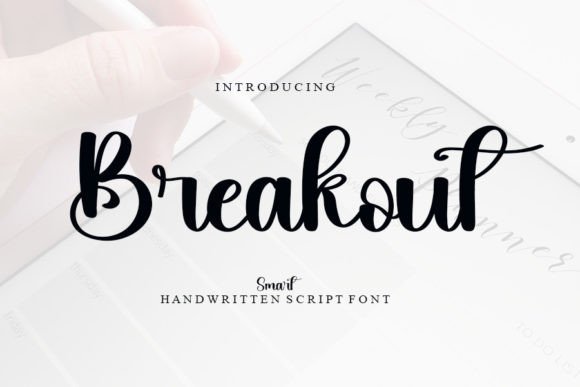
Introducing Breakout Font: Elevate Your Designs with Timeless Elegance
In the world of typography, fonts play a crucial role in conveying the tone and personality of a design. For designers and crafters seeking to add a touch of sophistication and class to their projects, Breakout Font is an excellent choice. This trendy handwritten font boasts a contemporary atmosphere and impeccable form, drawing inspiration from timeless classic calligraphy.
The Story Behind Breakout Font
Breakout Font is a carefully crafted typeface that combines traditional calligraphy techniques with modern design sensibilities. Its creators aimed to develop a font that would not only be visually stunning but also highly versatile, suitable for a wide range of applications. Whether you’re working on a logo, branding materials, or digital content, Breakout Font is designed to elevate your designs and leave a lasting impression.
Key Features of Breakout Font
- Handwritten with a Personal Touch: Breakout Font features a beautiful, handwritten style that adds a personal and human touch to your designs.
- Contemporary Atmosphere: Despite being inspired by classic calligraphy, Breakout Font has a distinctly modern feel, making it perfect for contemporary design projects.
- Impeccable Form: The font’s precise and clean lines ensure excellent readability, even at smaller sizes.
- Timeless Elegance: Breakout Font’s classic roots give it a timeless quality, allowing it to work well across various design contexts.
What Makes Breakout Font Stand Out
Breakout Font’s unique blend of traditional and modern elements sets it apart from other fonts in its category. Its elegant and refined appearance makes it an excellent choice for designers looking to create sophisticated and high-end designs. Additionally, the font’s versatility ensures it can be used in a variety of contexts, from luxury branding to digital publishing.
Use Cases for Breakout Font
Breakout Font’s flexibility makes it suitable for a wide range of design projects, including:
- Logo Design: Create a lasting impression with a custom logo that exudes elegance and sophistication.
- Branding Materials: Develop a cohesive brand identity with Breakout Font, perfect for business cards, letterheads, and packaging.
- Digital Content: Enhance your website, blog, or social media graphics with a font that commands attention and respect.
- Print Materials: Use Breakout Font for brochures, flyers, and posters to add a touch of class and refinement.
Tips for Using Breakout Font Effectively
To get the most out of Breakout Font, consider the following tips:
- Pair with Complementary Fonts: Combine Breakout Font with simpler fonts to create visual interest and hierarchy.
- Experiment with Colors: Breakout Font works well with a range of colors; experiment to find the perfect combination for your design.
- Pay Attention to Spacing: Ensure sufficient spacing between letters and lines to maintain readability and elegance.
Breakout Font is a stunning handwritten font that brings a touch of timeless elegance and sophistication to any design project. Its unique blend of classic calligraphy and modern sensibilities makes it an excellent choice for designers and crafters seeking to create high-end designs. With its versatility, impeccable form, and beautiful appearance, Breakout Font is sure to become a staple in your typography collection.